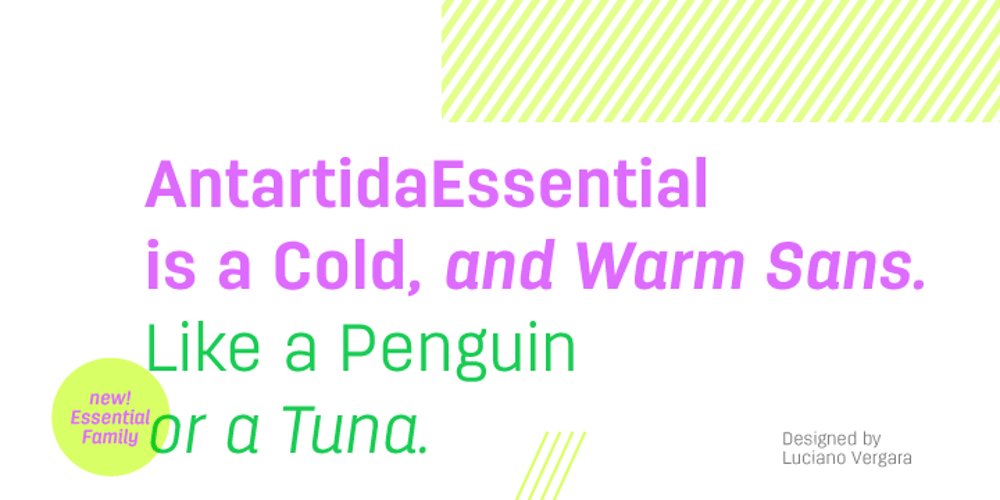
AntartidaEssential Font Family was designed by Luciano Vergara and published by Los Andes. AntartidaEssential contains 4 styles and family package options. AntartidaEssential is a minimal sans serif typeface. While its simple monolinear structure gives it a kind of neutral feeling, it is functional and clean. It is a essential family of 4 fonts, 2 weights and italics. This typeface no contains alternate glyphs and add only Windows 1252 Character set (219 Glyphs).